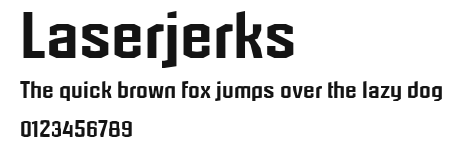
Laserjerks Preview
• Font Name: Laserjerks
• Designer: Ray Larabie
About Laserjerks.ttf
Laserjerks.ttf is a modern, elegant sans-serif font designed for ultimate readability and visual harmony. Perfect for branding, headlines, web design, and print materials.